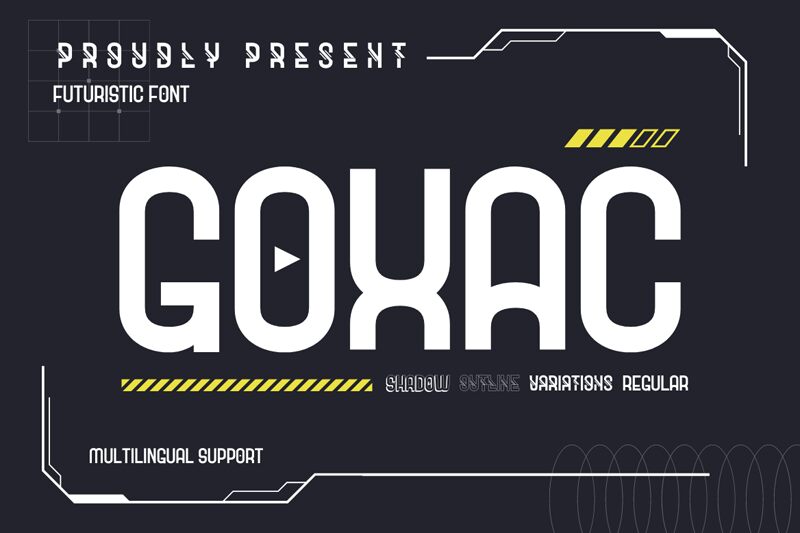
Goxac Variation font, designed by Twinletter, is a free variable font. It has a futuristic mood and comes in one variable width and weight. This type of typeface is perfect for all kinds of creative types whether minimalistic logotypes or branding projects-its bold geometric shapes are ideal for logo work. The logo variation features blocks that really stand out against any other design elements like letters themselves due to their tallness compared with horizontality alone which gives off an impressionistic effect; high contrast between thick lines can make these types look both professional yet still fun at times.
Use cases include: eye-catching headers for posters and magazine layouts; product logos; business cards titles; business headlines & hero graphics on websites or apps alike! Fans may also enjoy using Goxac with text set inside solid color backgrounds where subtle gradients play nicely alongside strong colors from across many different shades each representing something unique about whatever content it’s paired against thus further enhancing every individual message being conveyed without taking away anything results achieved beforehand either intentionally yourselves altogether perhaps?